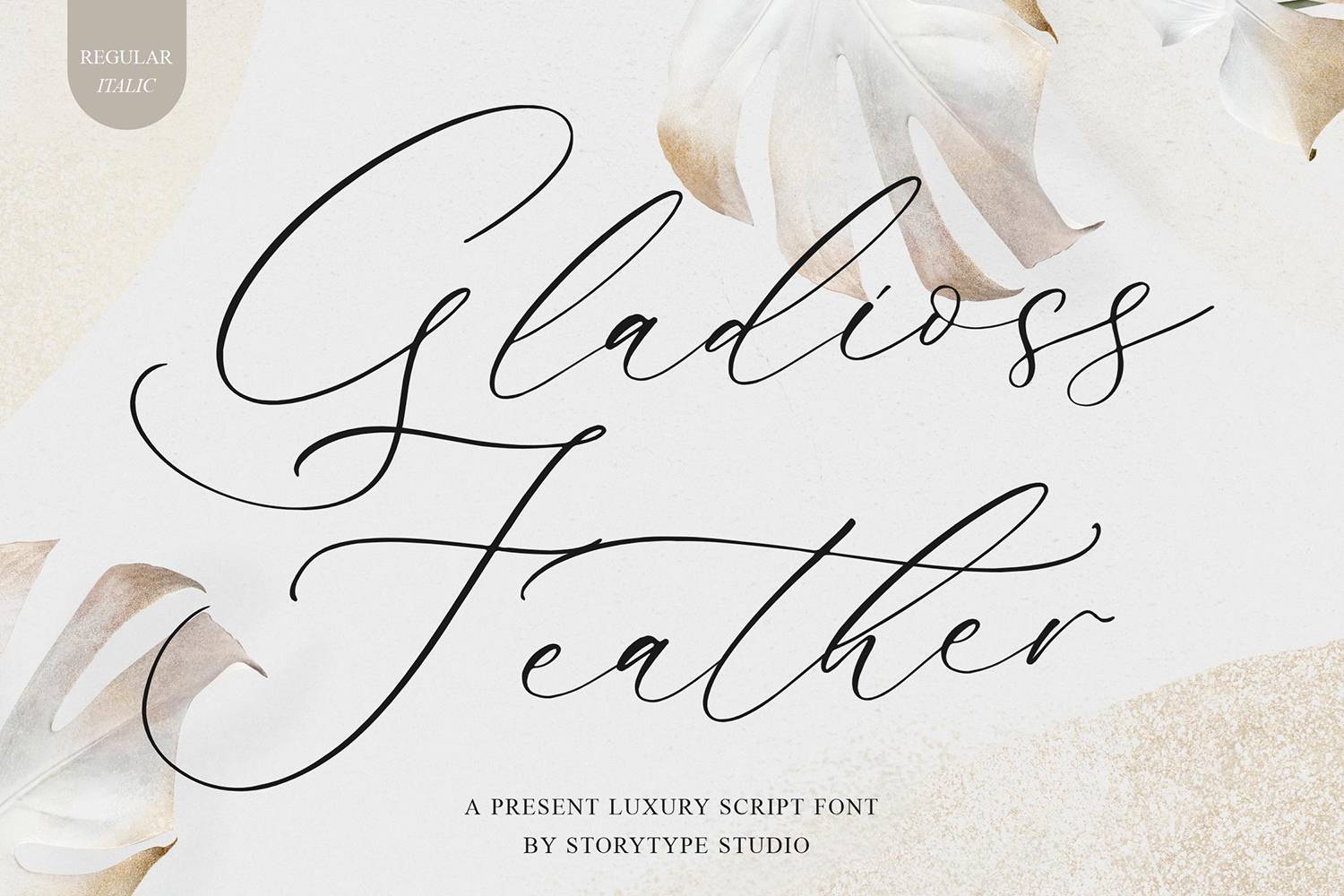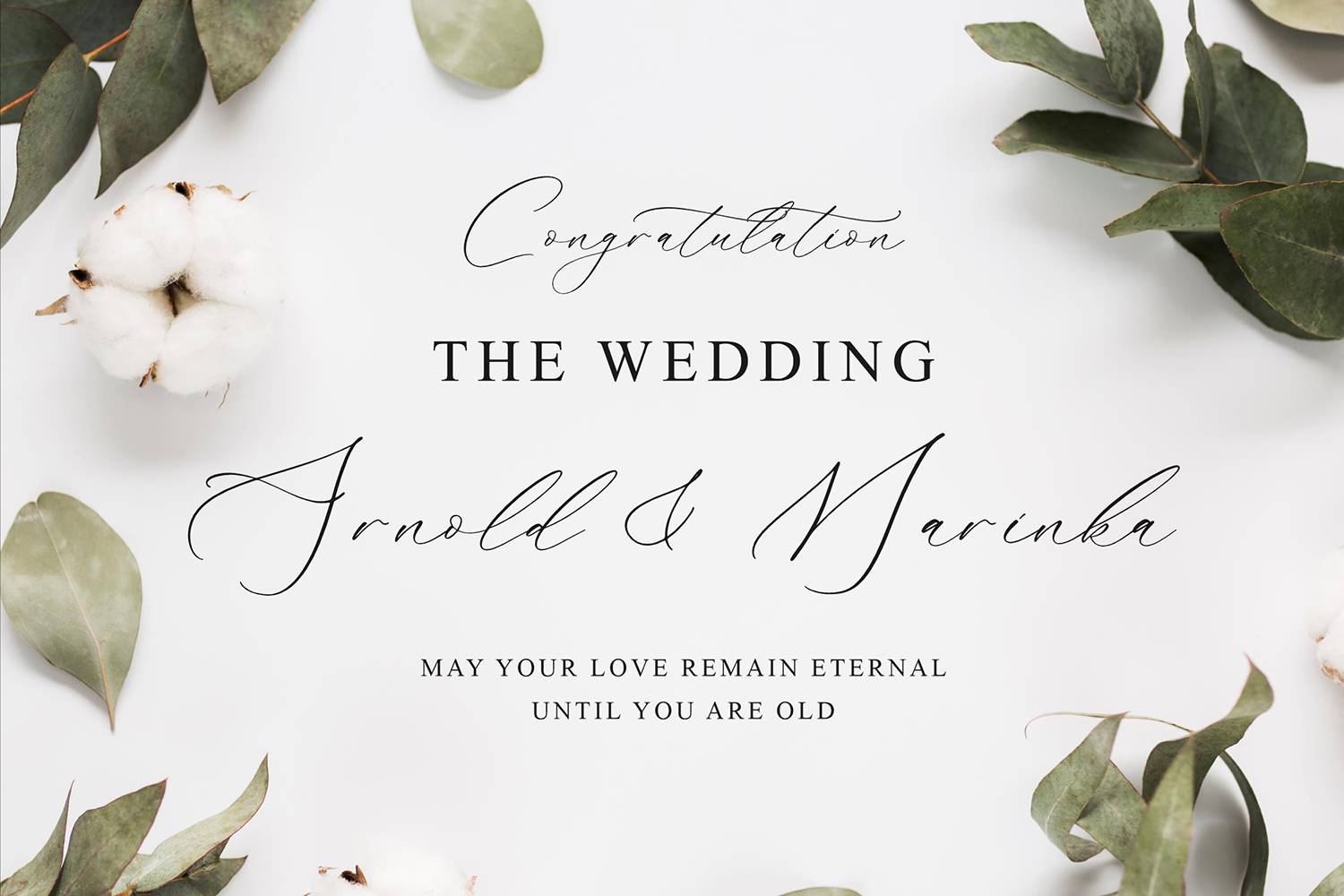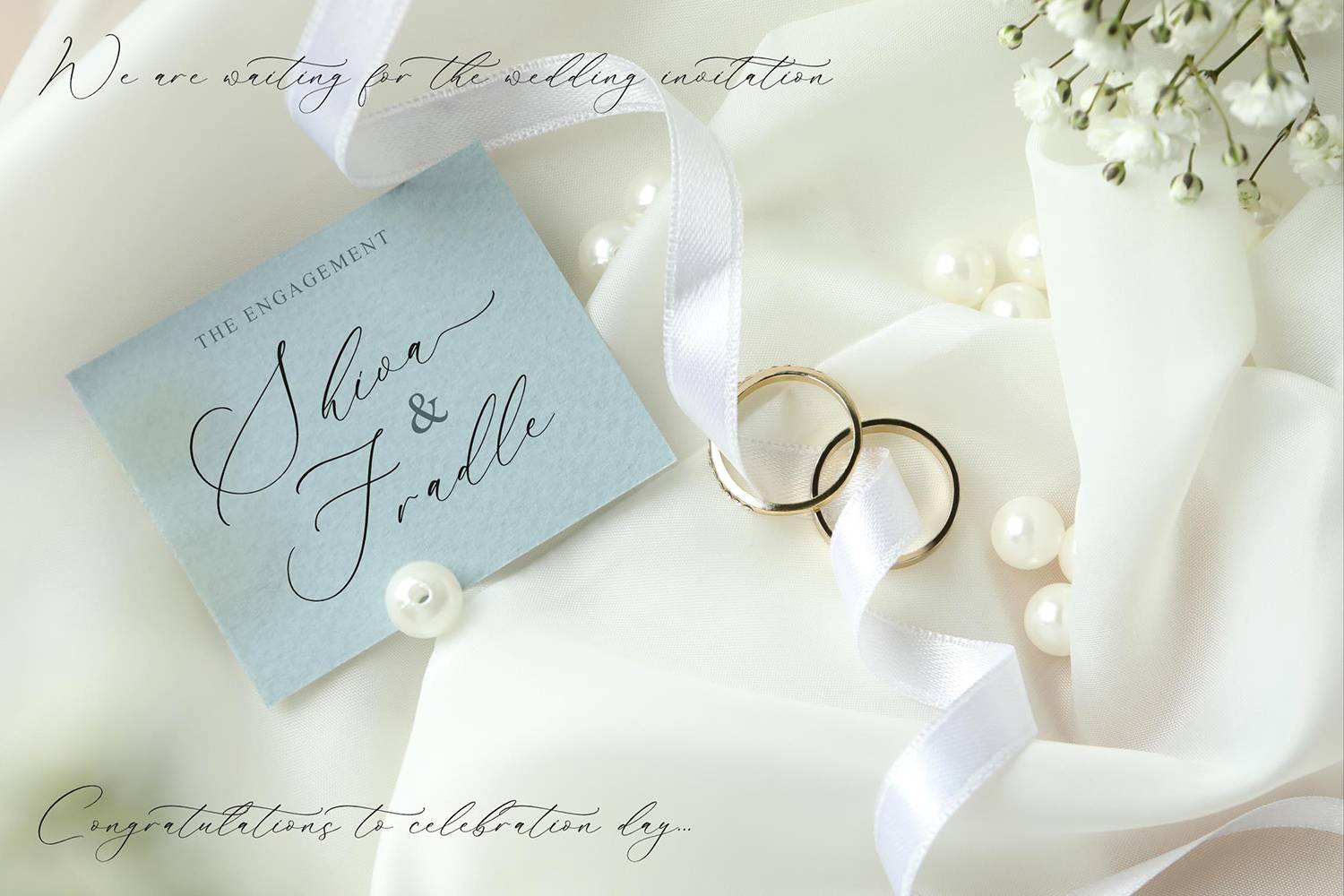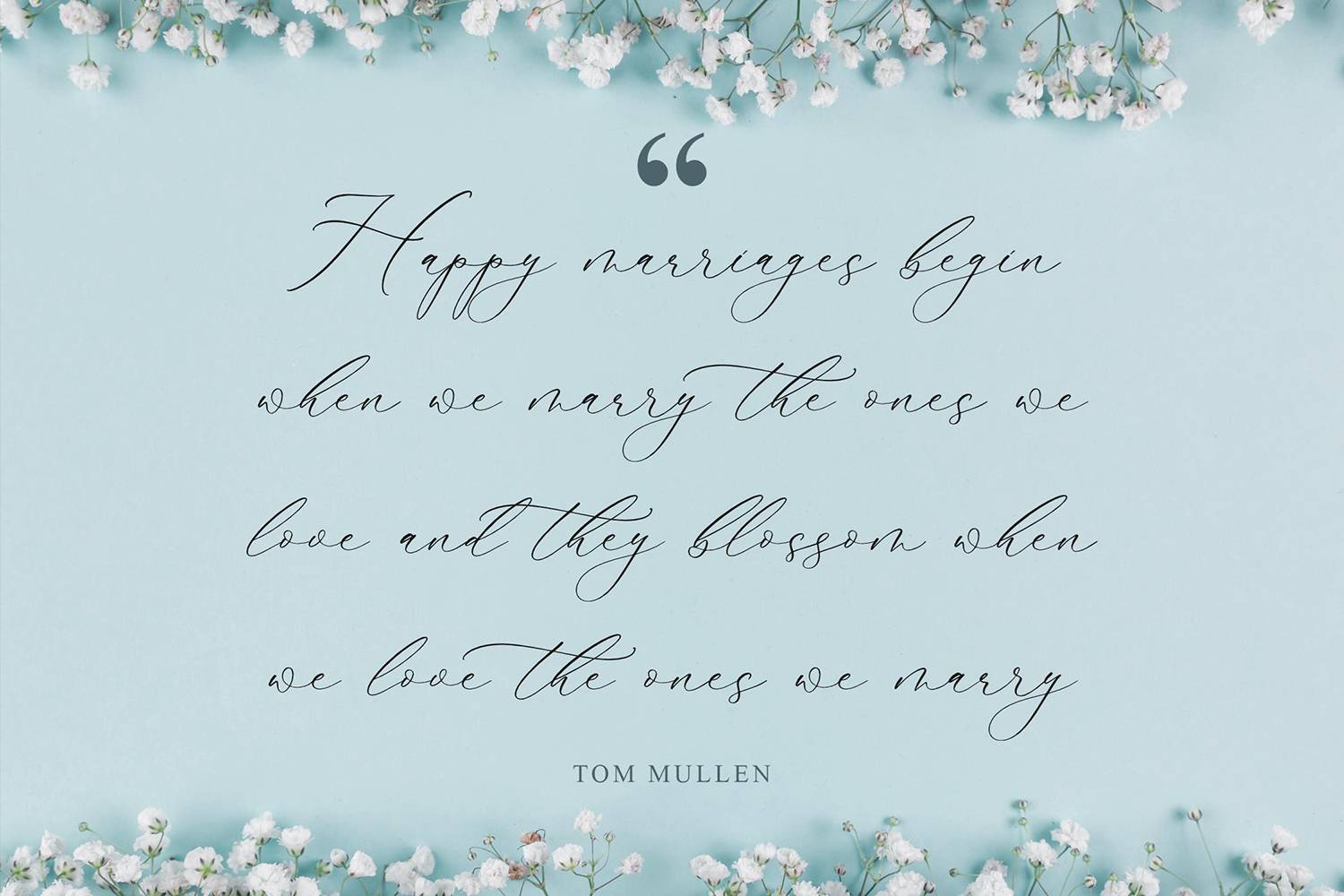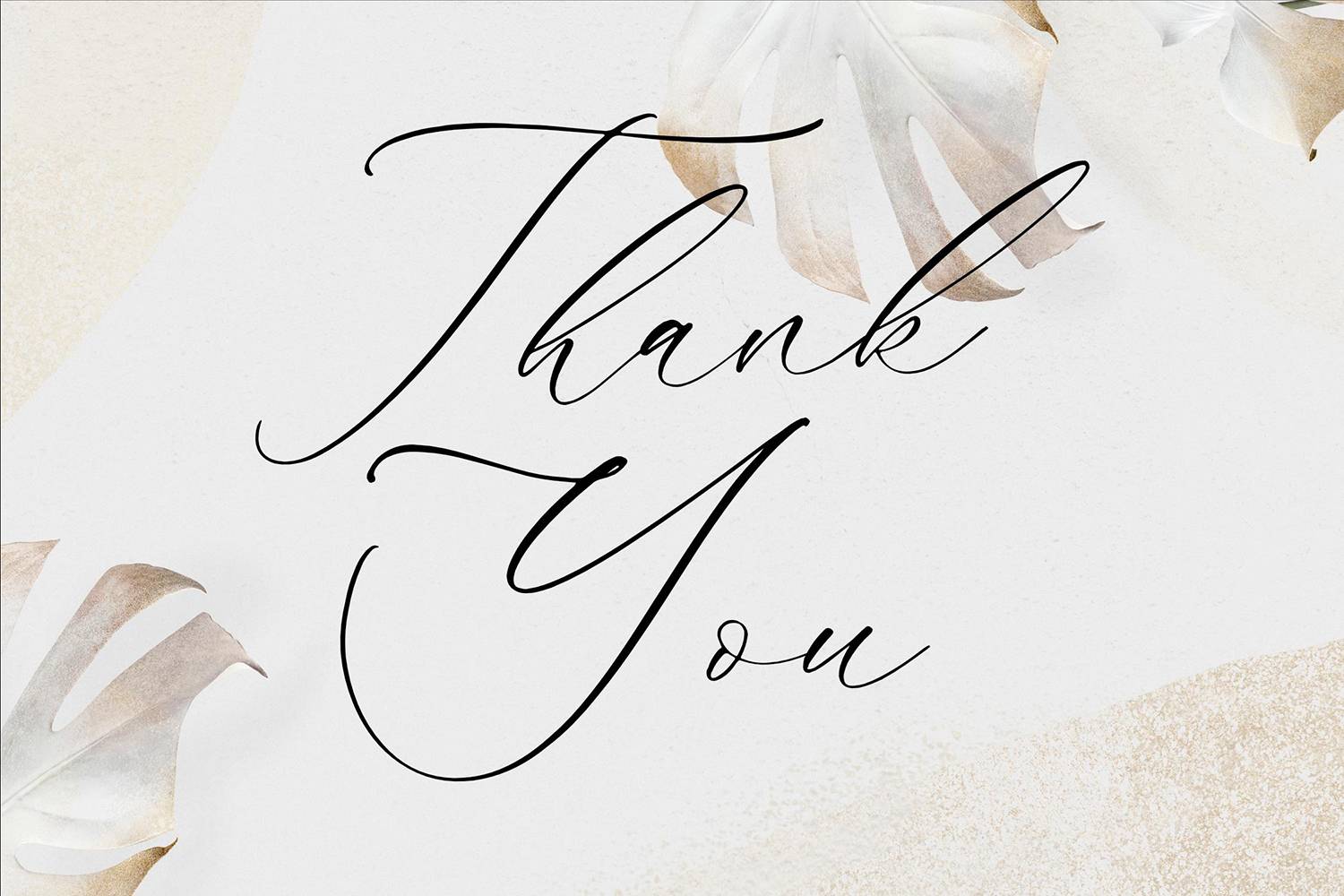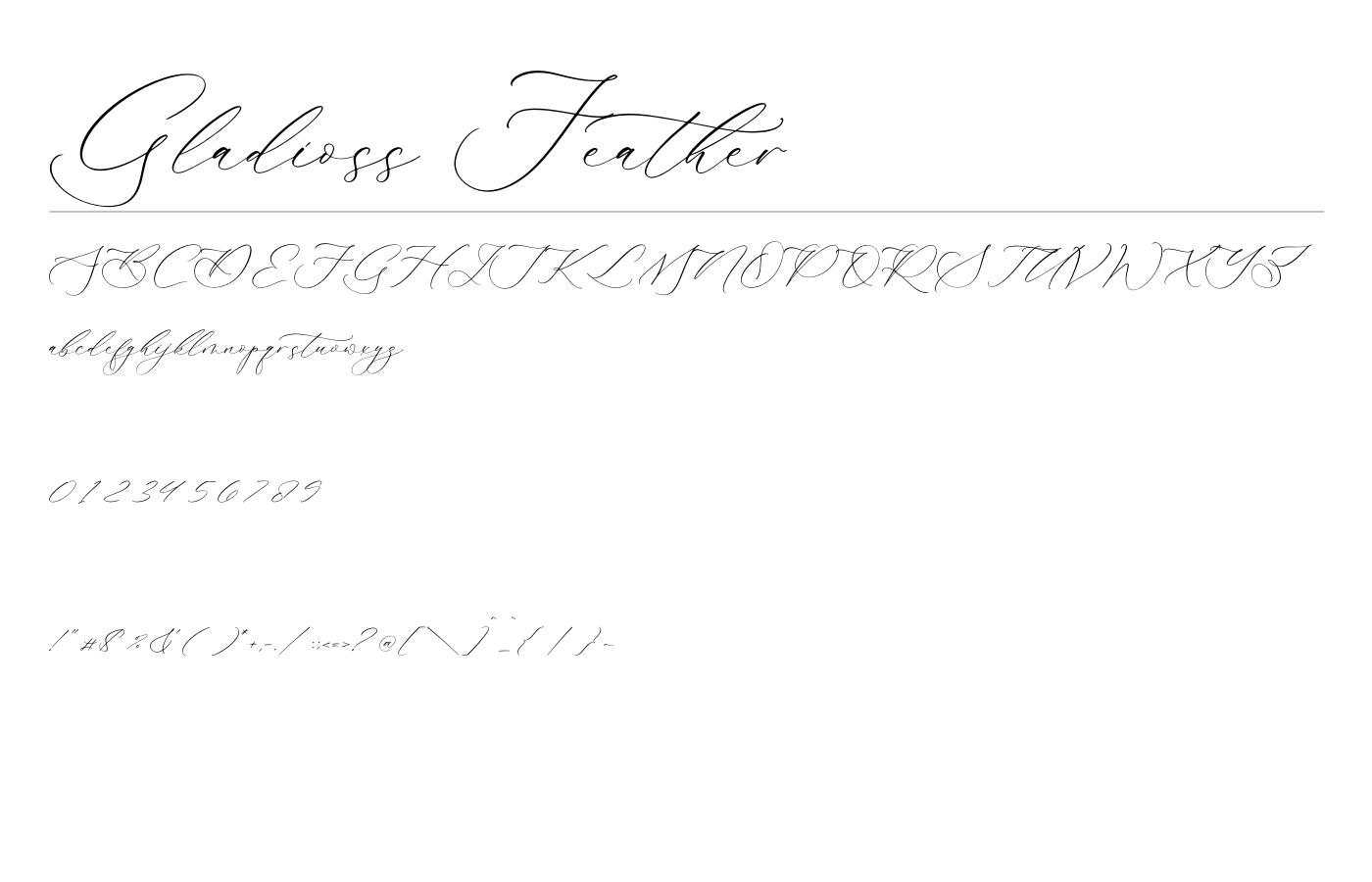
Gladioss Feather is an elegant, ultra-thin script font that features graceful, flowing letterforms reminiscent of delicate handwriting. Its high contrast strokes and intricate swashes give it a sophisticated, luxurious feel, making it ideal for wedding invitations, high-end branding, and refined editorial projects where a touch of romance and elegance is desired. This font shines in large display uses, adding a stylish and personal flair to any design.
Gladioss Feather Font
About Gladioss Feather Font